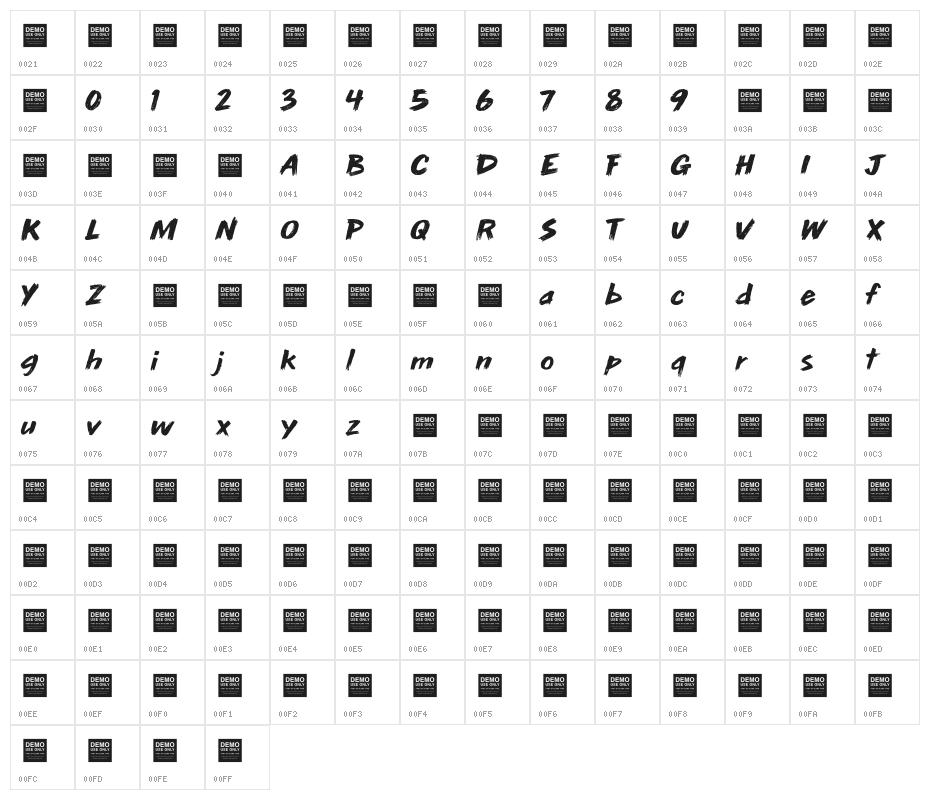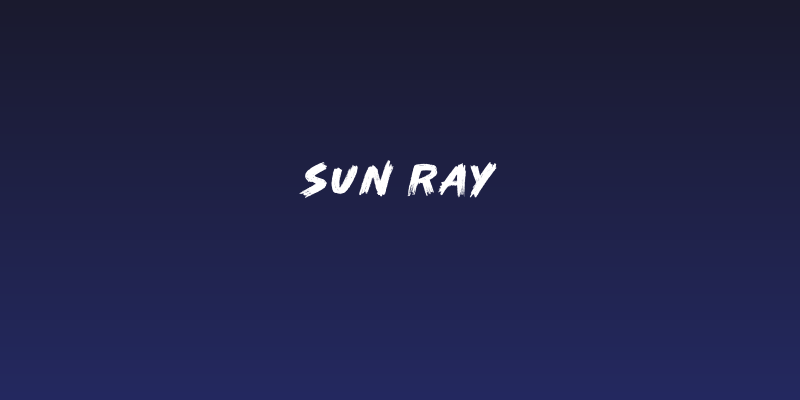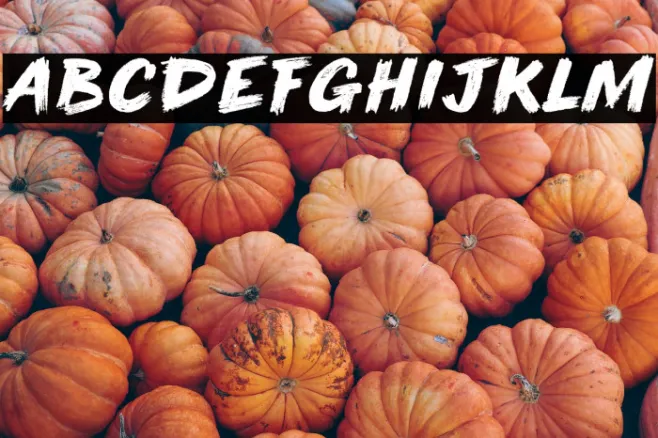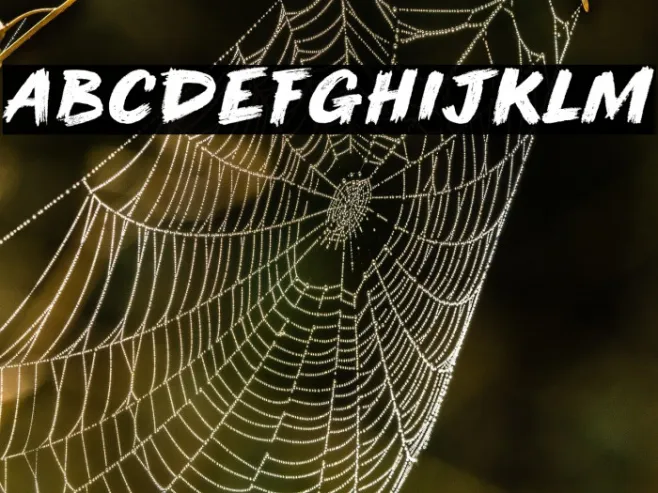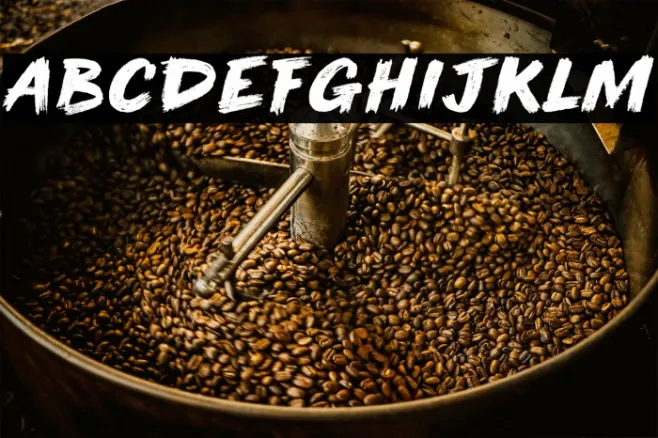
Sun Ray Font
Sun Ray Description
This font exudes a bold, energetic vibe with its brushstroke style, giving it a dynamic and artistic appearance. The characters are crafted with a rough, textured look, reminiscent of hand-painted lettering. Each letter has a unique flair, with varying thicknesses and angles, adding to its expressive nature. The uppercase and lowercase letters maintain a consistent style, while the numerals and special characters complement the overall design. This font is perfect for projects that require a touch of creativity and boldness.
SUN-RAY UPPERCASE
SUN-RAY LOWERCASE
SUN-RAY OTHER CHARS
| Proposed Projects | Ideal for posters, branding, album covers, and any project needing a creative, energetic touch. |